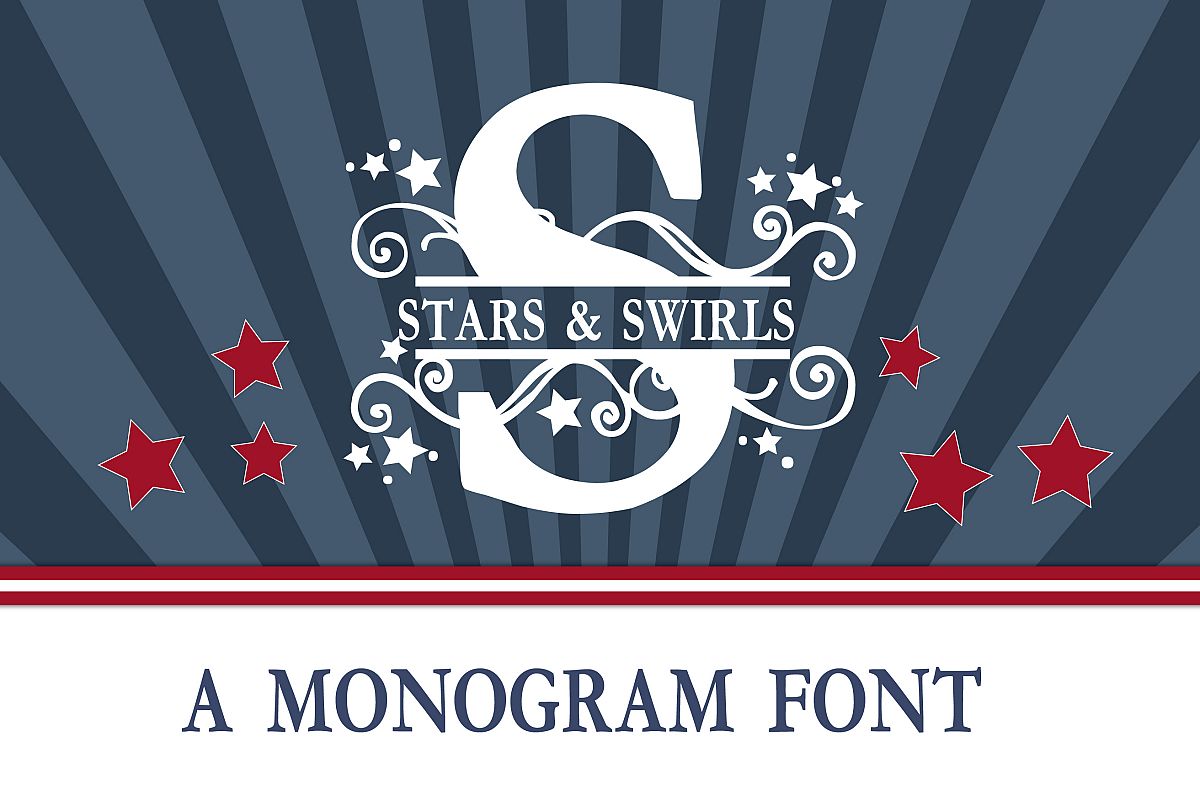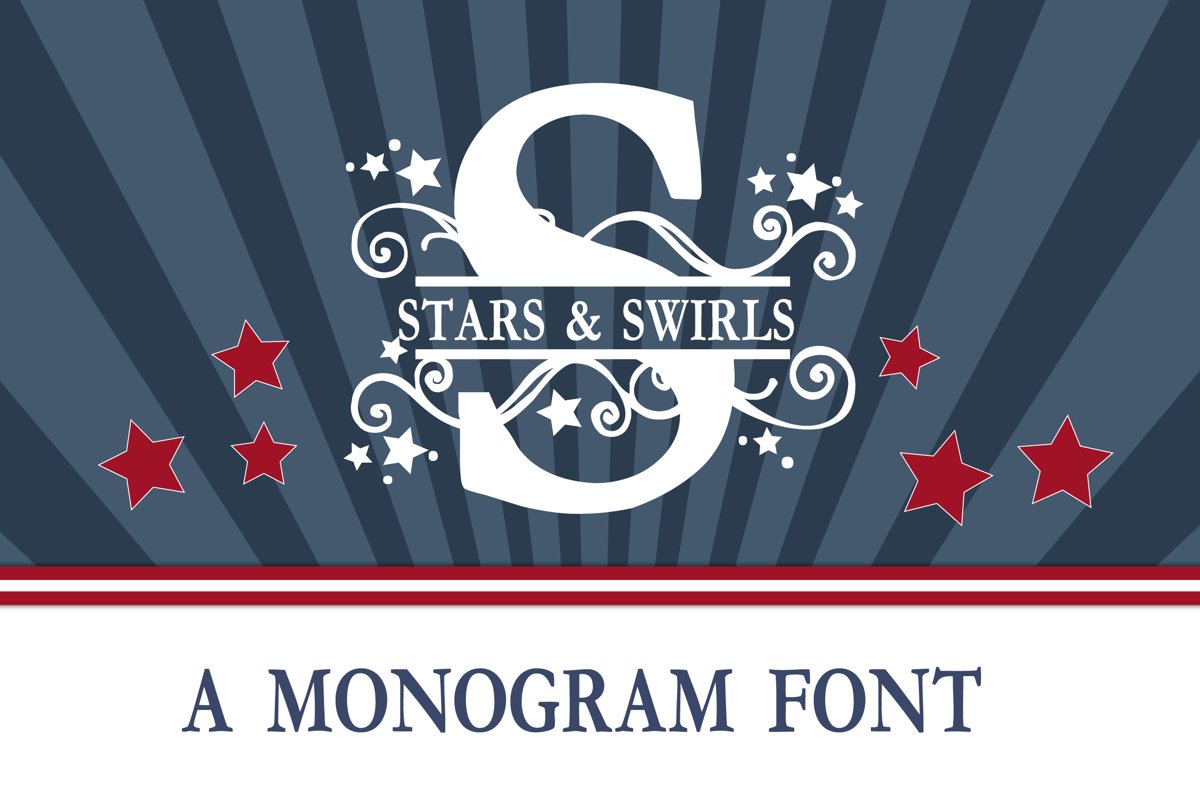
This monogram font is not meant for regular typing uses...rather it was created with crafts in mind. Type your monogram letter using the uppercase and then type the word you want in the "lowercase" and slide the two together to create a monogram banner.
- Monogram banner uppercase
- Uppercase without flourishes
- Numbers and symbols
- International characters